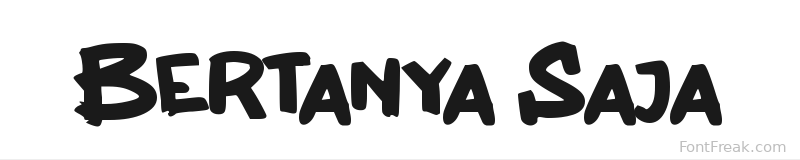
Bertanya Saja
About Bertanya Saja
Bertanya Saja is a distinctive display font designed by Wahyu Eka Prasetya, falling into the category of decorative typefaces. This font showcases a playful and informal style, characterized by its bold strokes and whimsical letterforms. The strokes have a moderate weight that lends a sense of friendliness and approachability, while the slight inconsistency in letter height adds an organic touch to the overall aesthetic. The spacing is well-balanced, making it suitable for various applications without compromising readability.
The Bertanya Saja font is particularly well-suited for creative projects that require an eye-catching and unique typeface. It shines in wedding invitations, where its charming and informal look can convey a sense of warmth and joy. Additionally, it is an excellent choice for children's book covers, as it captures an inviting and playful vibe that appeals to younger audiences. Restaurant menus can also benefit from this font's personality, helping to create an engaging dining experience. Furthermore, it can be effectively used in social media graphics, providing a lively touch to content aimed at attracting attention and fostering engagement.
What sets the Bertanya Saja font apart is its ability to combine fun and functionality. Its unique design makes it stand out in a crowded marketplace, appealing to anyone seeking to add a touch of personality to their projects. For those interested in incorporating this delightful typeface into their work, a Bertanya Saja font free download is readily available, making it accessible for all creative endeavors.